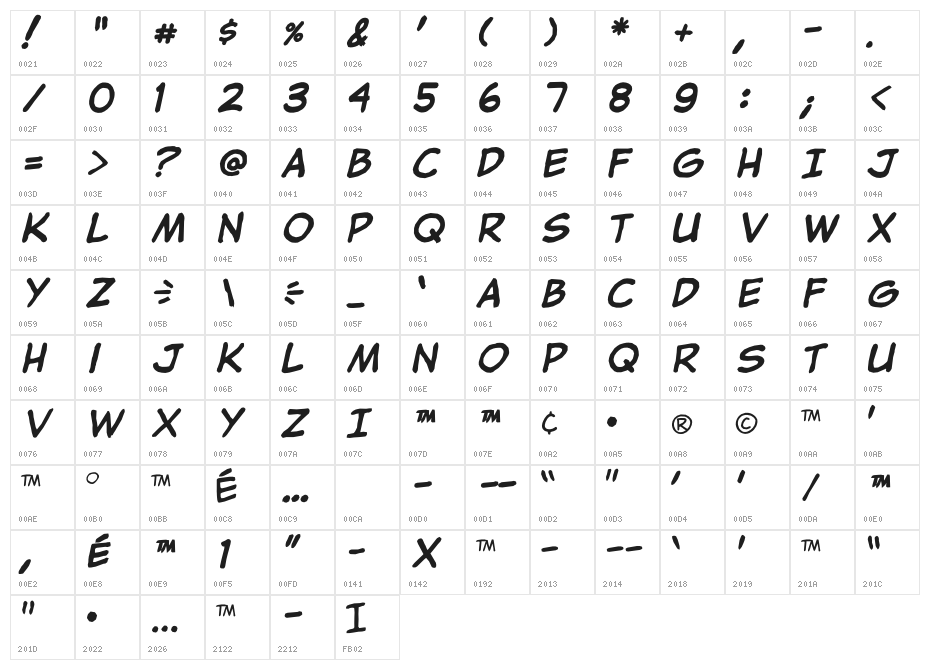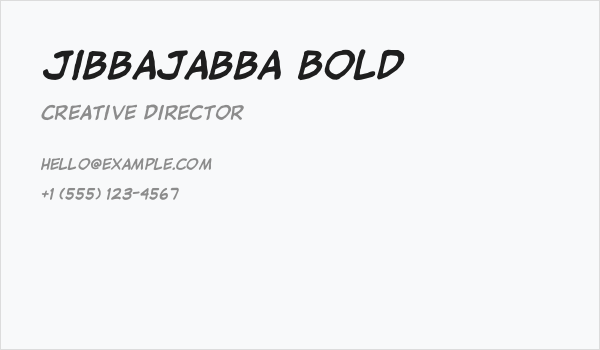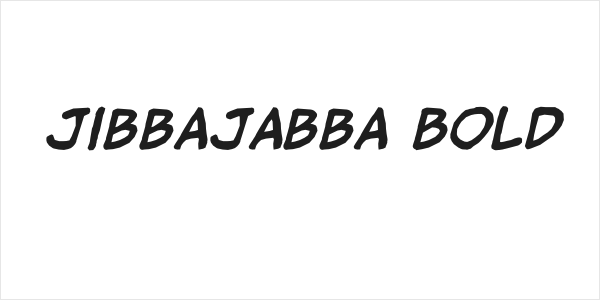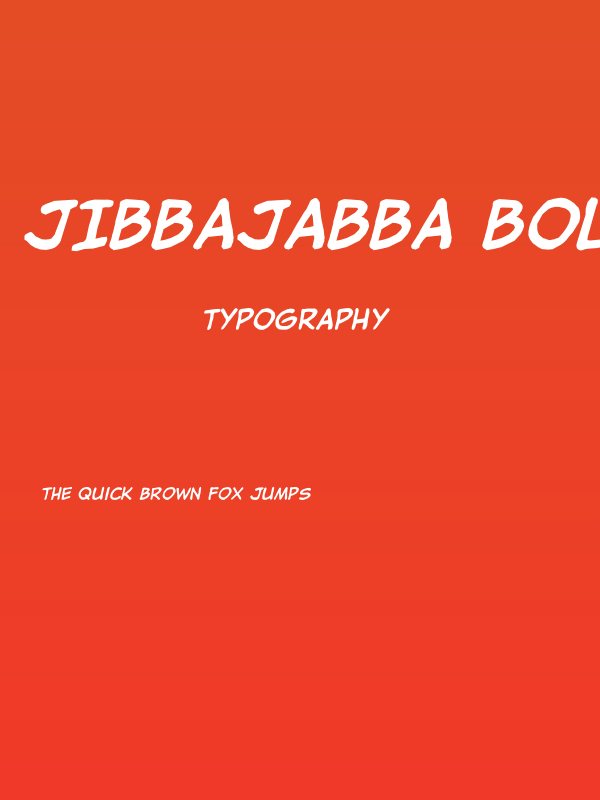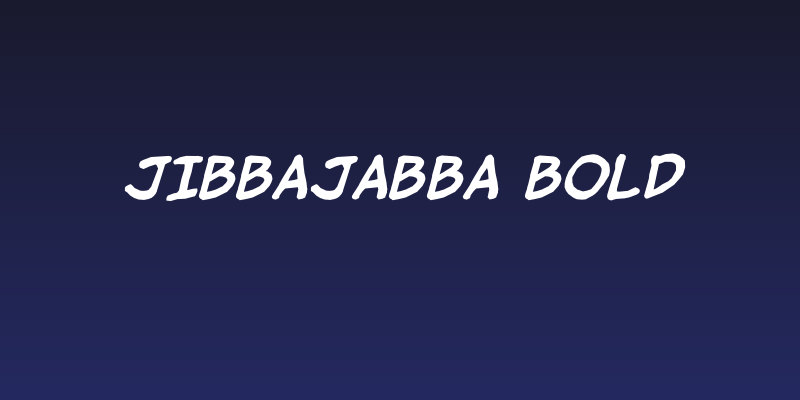
jibbajabba Bold Font
jibbajabba Bold Description
This bold and dynamic font features a playful, handwritten style with a slight slant, giving it a casual and energetic appearance. The characters are thick and rounded, providing a sense of friendliness and approachability. The uppercase and lowercase letters maintain a consistent style, with smooth curves and a slightly irregular baseline that enhances its informal charm. Numbers and special characters are equally bold and expressive, making them stand out in any design. This font is perfect for projects that require a lively and engaging touch.
| Proposed Projects | Ideal for children's books, playful branding, casual invitations, and social media graphics. |